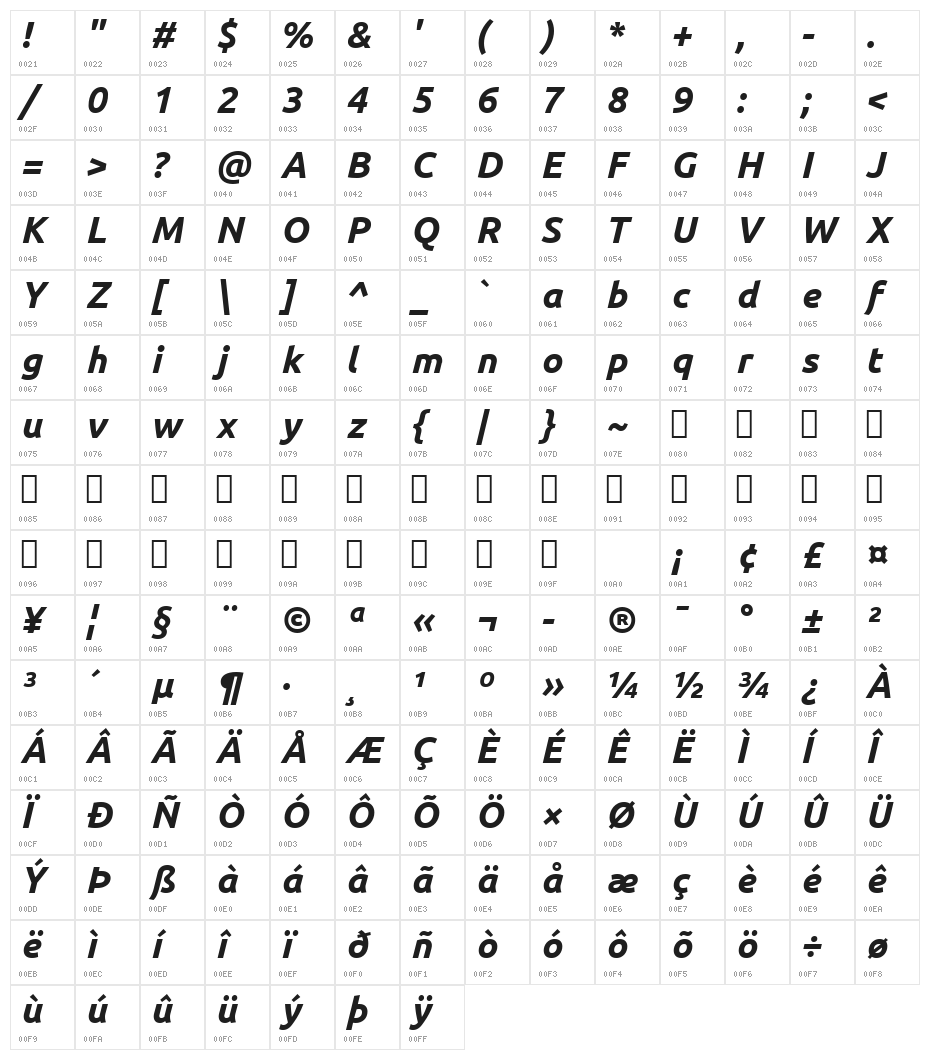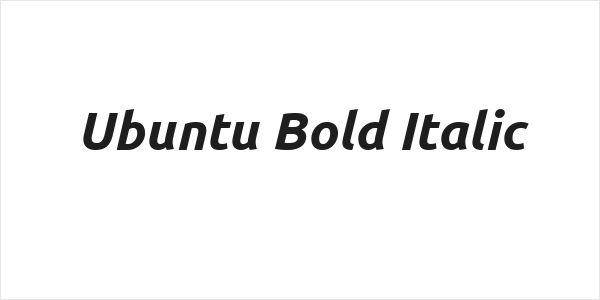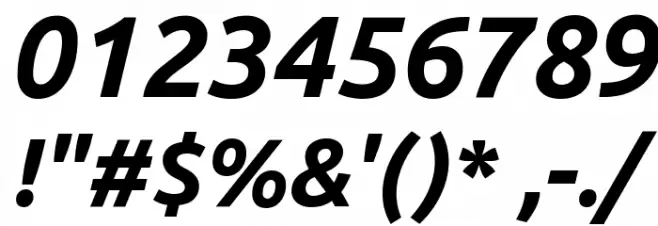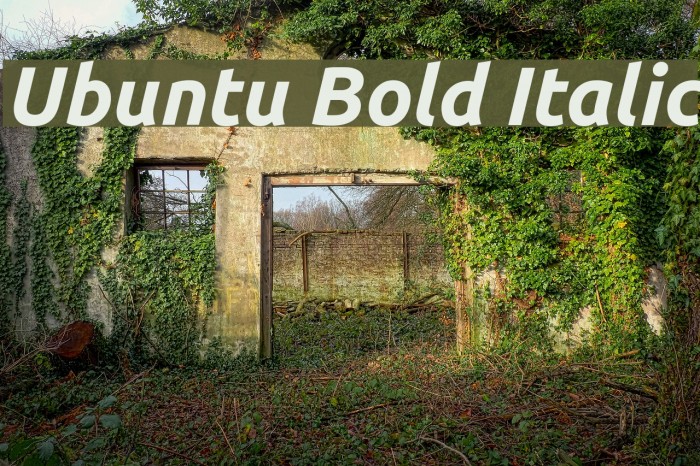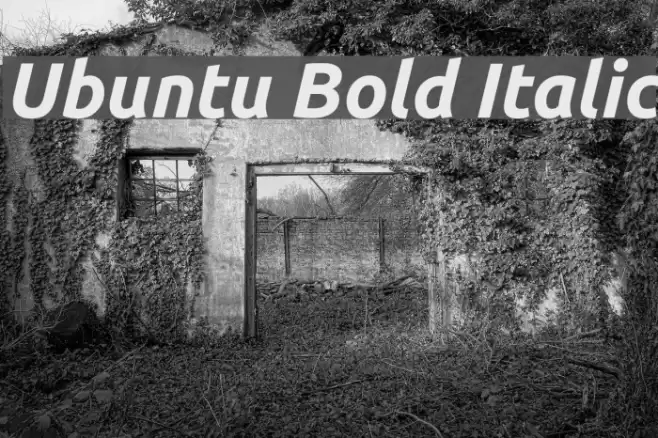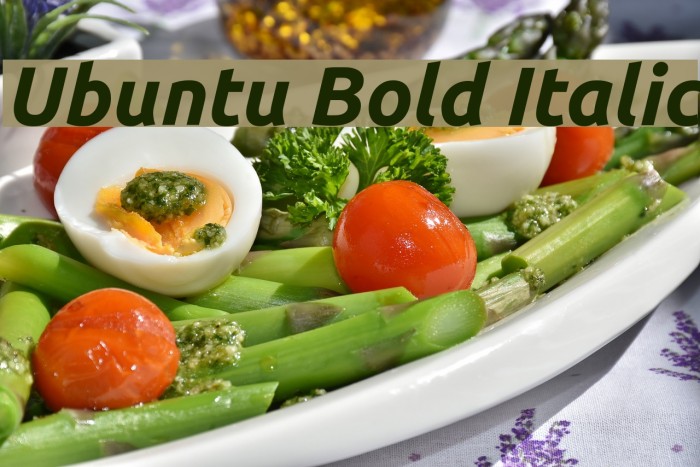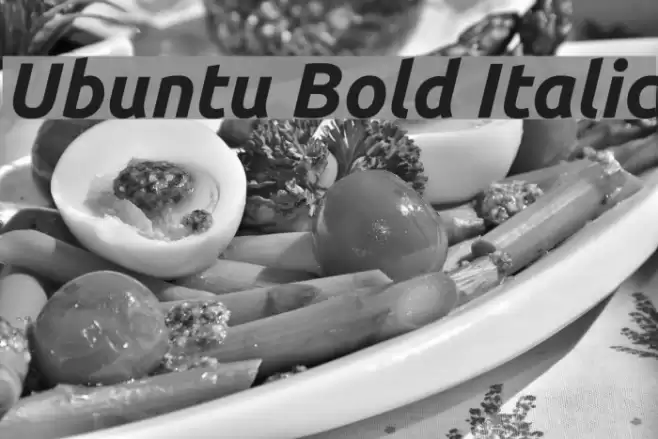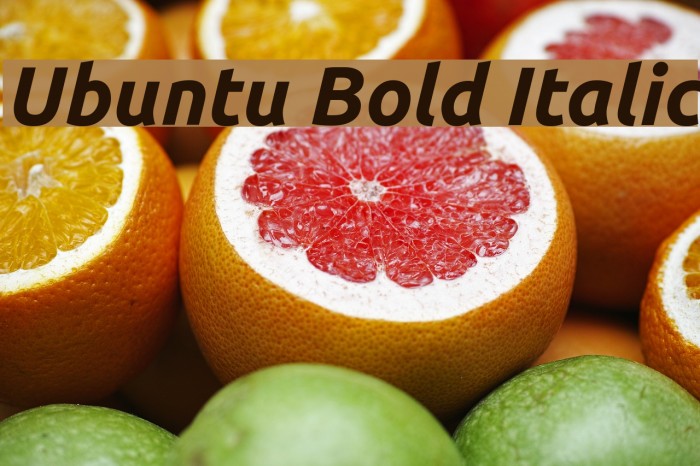
Ubuntu Bold Italic Font
Ubuntu Bold Italic Description
This font features a modern and clean sans-serif style with a bold and italicized appearance. The characters are slightly slanted, giving a dynamic and forward-moving impression. The strokes are consistent in thickness, providing a uniform and balanced look. The font maintains excellent legibility across both uppercase and lowercase letters, as well as numerals and special characters. Its design is versatile, making it suitable for a wide range of applications from digital interfaces to print media.
| Use Case | Headlines, Body text, Logos |
| Proposed Projects | Ideal for branding, advertising, digital interfaces, and editorial design. |